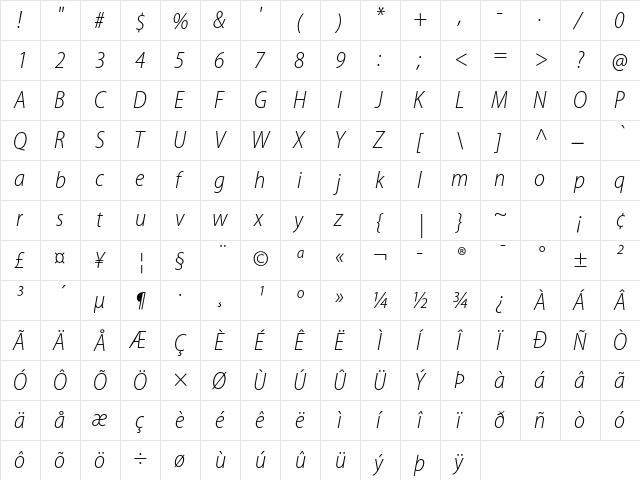
Myriad Pro Light SemiCondensed Italic Font Preview
| Style | Light SemiCondensed Italic |
| Designer | Robert Slimbach and Carol Twombly |
Design Context for Myriad Pro Typeface
Myriad Pro offers clean, dependable letterforms without strong stylistic allegiance, making it a practical choice for designers who need flexibility. Its italic angle brings a sense of urgency and motion to the letterforms. The delicate stroke weight brings airiness and refinement to layouts. Its narrow stance lets it pack a punch even in space-constrained designs.
Pro Tip: Use Myriad Pro for emphasis, pull quotes, and subheadings where its slanted energy can add rhythm to the layout.